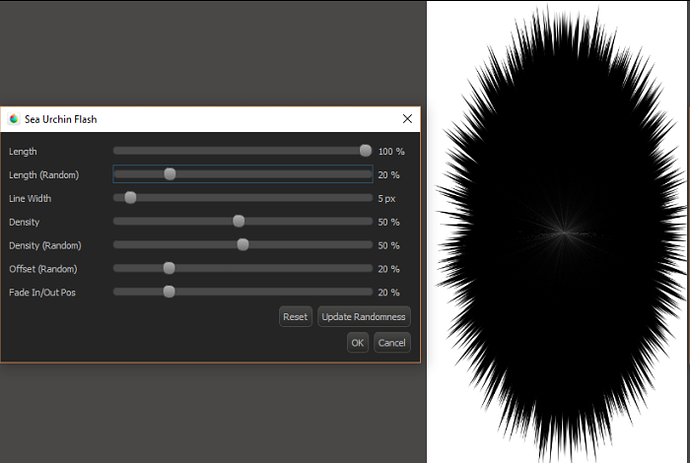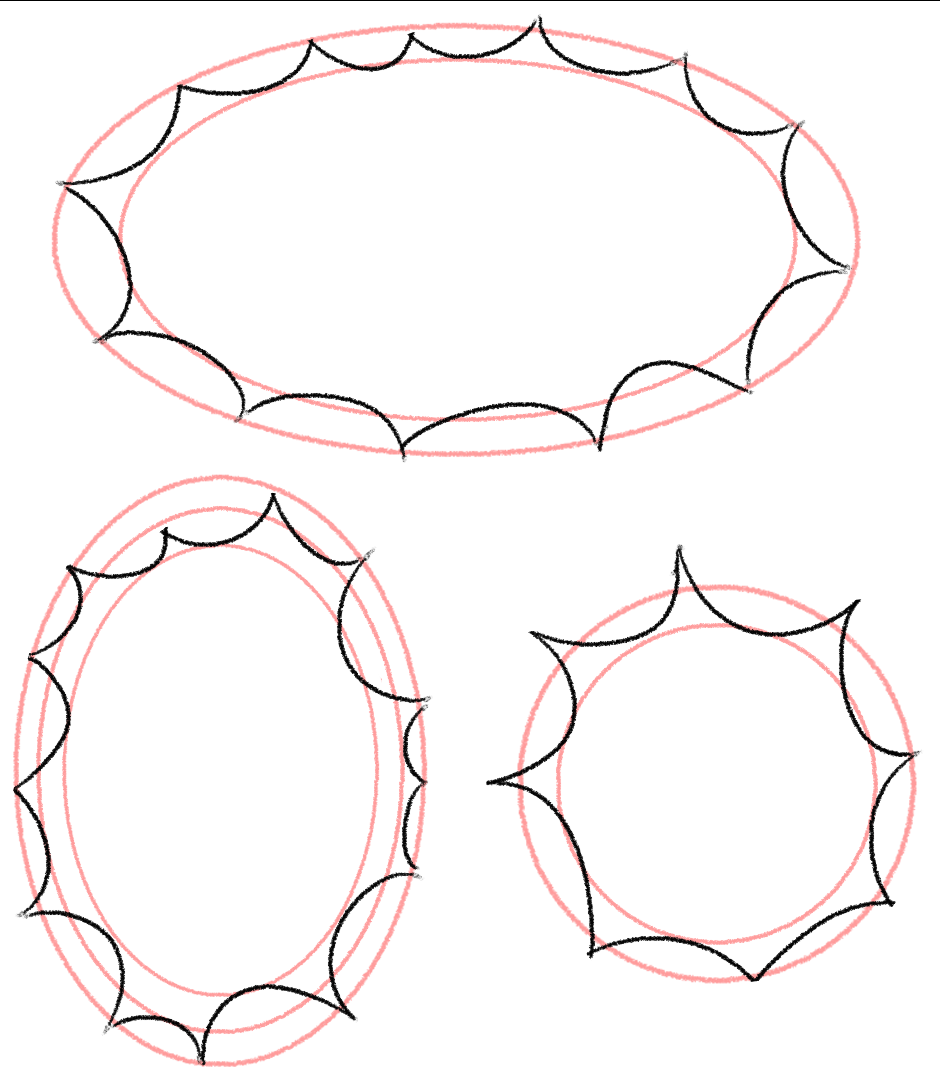
well for the sea urchin i use medibang paint's effects options
from there it's just a matter or messing around with the slider options till you get something you like
spaces can be filled in with a brush and then resizing to your needs for the panel or just select the space from the start and medibang creates the pattern in just that spot.
as for those cartoon style bubbles i just do my best in just drawing it by hand. it doesn't always come out perfect but something that's kind of helped is having a guideline below it in the size or shape your looking for. I did these real quick as an example but it gives a gist of a sort of process
big things to remember is not to bother too much with making it look perfect, so long as the points clear it should be good. also the varied rings can help determine variations in the curves and spiky bits to kind of give it a more "wild" or excited feel depending on the balloon.